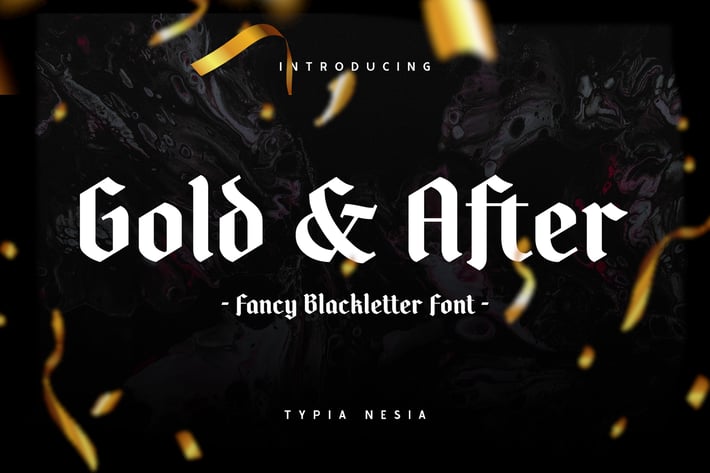
Gold and After - Vintage Blackletter Display Font
Gold and After is a blackletter typeface that embodies the vintage and classic style of typography. This font is perfect for designs that require a touch of traditional elegance and old-world charm. Its distinctive features, such as the sharp edges and bold lines, make it ideal for applications such as branding, logos, packaging, headlines, and posters. Gold and After expertise in blackletter typeface design makes it the perfect choice for designers who want to create standout designs.
Suitable for any design needs : logo, branding, modern advertising design, halloween, gothic design, apparel, hardcore music, animation or movie, logos, poster quote, book / cover Title, editorial design, website / blog, card, custom mug, pillow, t-shirts, and any gothic hand-lettered needs.